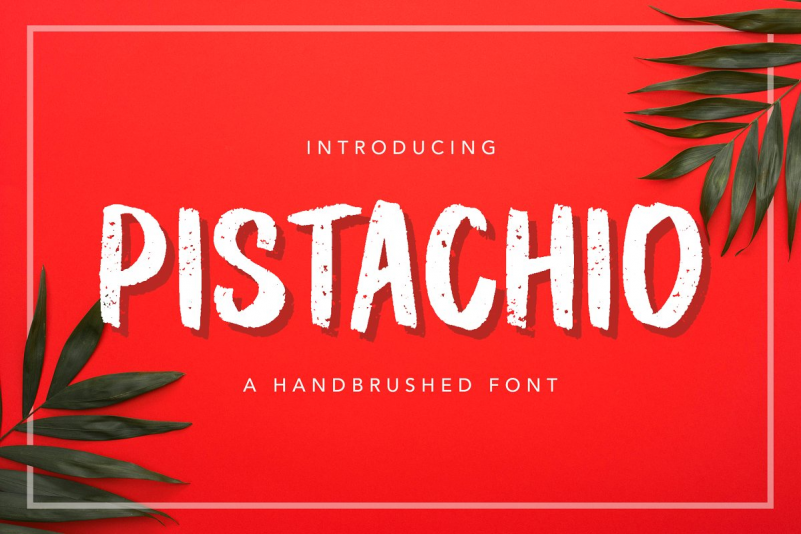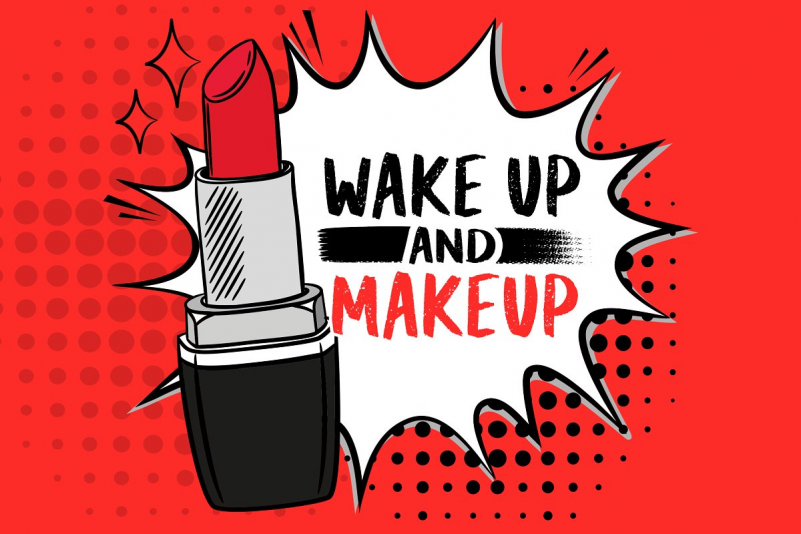
Pistachio Font
Pistachio is a hand-brushed, bold and playful font type, it’s a perfect fit for the modern facial, perfume and food theme. It’s also perfect for product packaging, tote bag, coffee, fast food – or a stylish text overlay to any background image. It’s also could be good for both fun and semi-formal text.